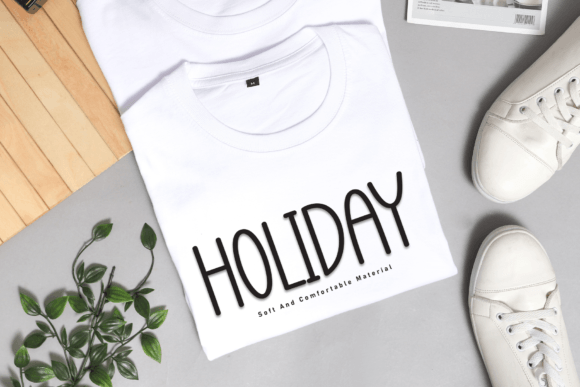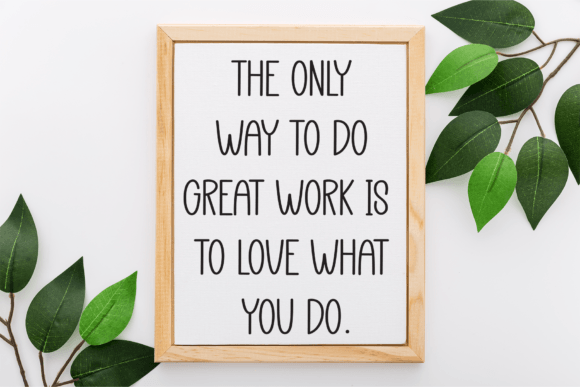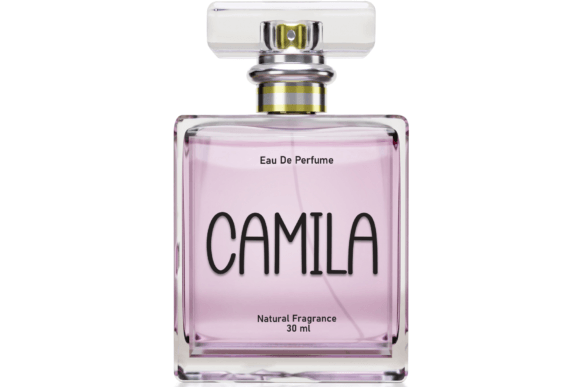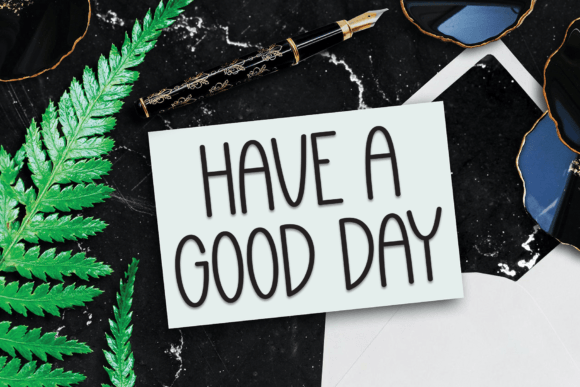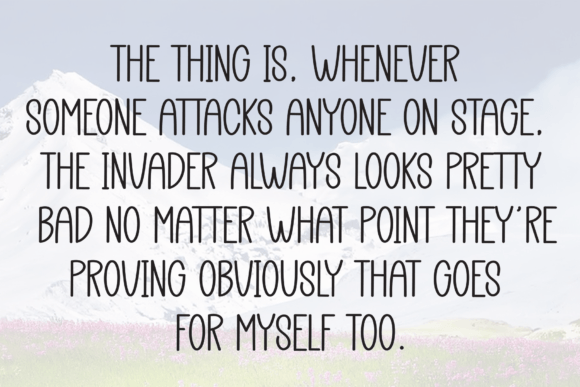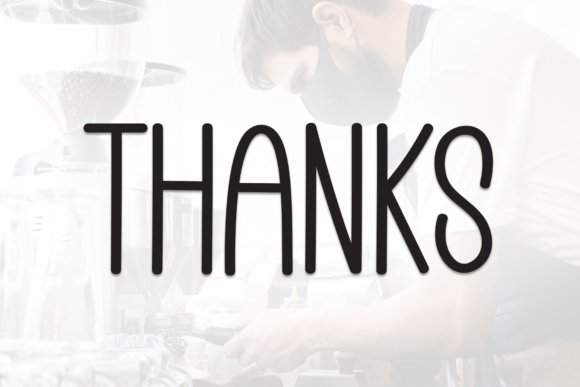
Introducing Baristas Font: The Sweet and Friendly Handwritten Font for Your Creative Projects
Are you a designer, crafter, or DIY enthusiast looking for a font that can add a personal touch to your creative projects? Look no further than Baristas Font, a sweet and friendly handwritten font that’s perfect for a wide range of designs. With its natural and unique style, Baristas Font is incredibly versatile and can be used for various projects, from branding and packaging to invitations and crafts.
The Charm of Baristas Font
Baristas Font is a handwritten font that’s designed to evoke a sense of warmth and friendliness. Its sweet and approachable style makes it perfect for designers and crafters who want to add a personal touch to their projects. The font’s natural and unique style is reminiscent of handwritten notes and letters, making it ideal for projects that require a human touch.
What Makes Baristas Font So Versatile?
The versatility of Baristas Font lies in its ability to fit into a wide range of designs. Whether you’re working on a branding project, a craft tutorial, or a DIY invitation, Baristas Font can be used to add a touch of personality and whimsy. The font’s unique style is suitable for various themes and genres, from rustic and vintage to modern and playful.
Use Baristas Font for Your Creative Projects
Baristas Font can be used for a variety of creative projects, including:
- Branding and Packaging: Use Baristas Font to create custom logos, labels, and packaging that reflect your brand’s personality.
- Invitations and Stationery: Add a personal touch to your invitations, greeting cards, and stationery with Baristas Font.
- Crafts and DIY Projects: Use Baristas Font to create custom titles, headings, and text for your craft tutorials, blog posts, and DIY projects.
- Social Media Graphics: Use Baristas Font to create eye-catching social media graphics, quotes, and posters.
Why Choose Baristas Font?
There are many reasons why Baristas Font stands out from other handwritten fonts. Here are a few:
- Unique Style: Baristas Font has a unique and natural style that’s unlike other handwritten fonts.
- Versatility: Baristas Font can be used for a wide range of designs and projects.
- Easy to Read: Baristas Font is easy to read and understand, making it perfect for body text and headings.
- High-Quality: Baristas Font is a high-quality font that’s designed to look great on any device or medium.
Get Creative with Baristas Font
With Baristas Font, the only limit is your imagination! You can use it to create a wide range of designs, from simple and elegant to complex and playful. Whether you’re a designer, crafter, or DIY enthusiast, Baristas Font is the perfect addition to your creative toolkit.
In conclusion, Baristas Font is a sweet and friendly handwritten font that’s perfect for designers, crafters, and DIY enthusiasts. Its natural and unique style makes it incredibly versatile and suitable for a wide range of designs. With Baristas Font, you can add a personal touch to your creative projects and make them stand out from the crowd.